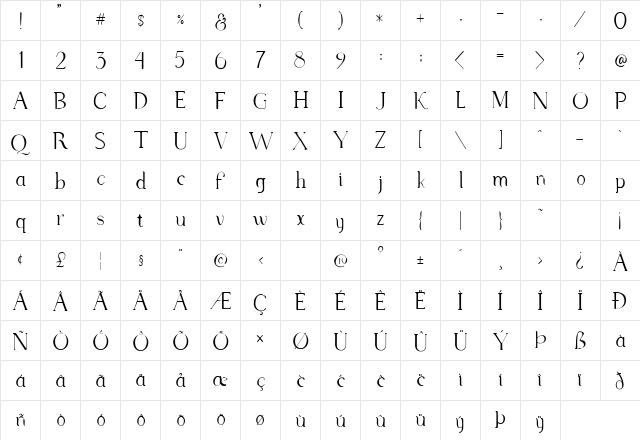
Supernova Regular
| Foundry | WonderInkStyle |
| Designer | Filia WonderInkStyle |
Design Context for Supernova Typeface
Supernova is a composed and adaptable typeface that performs quietly and consistently across a wide range of design contexts.